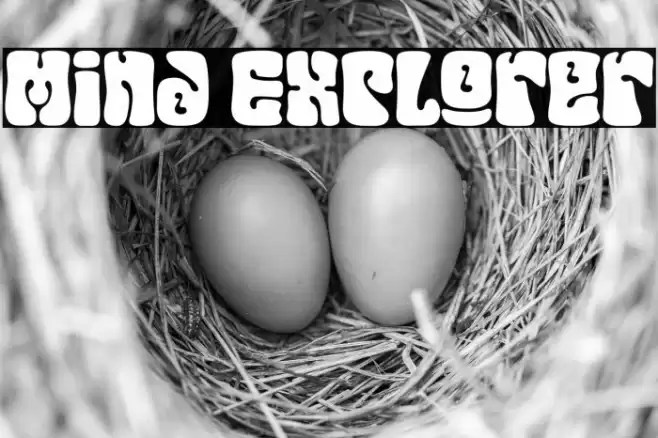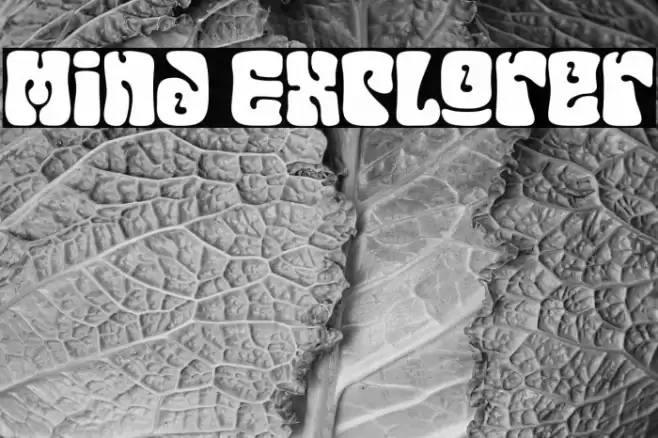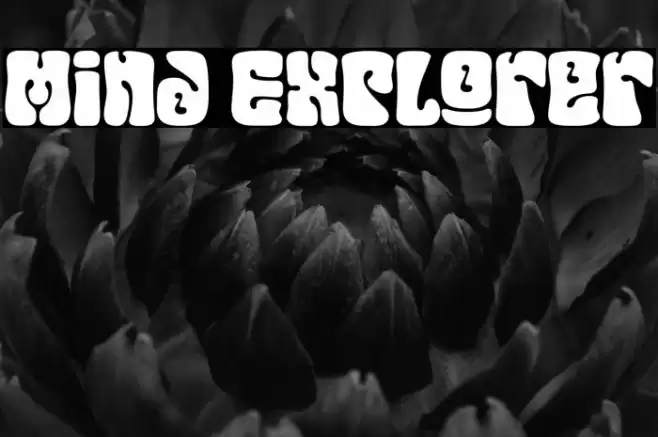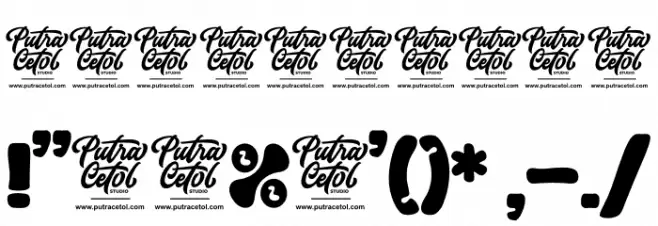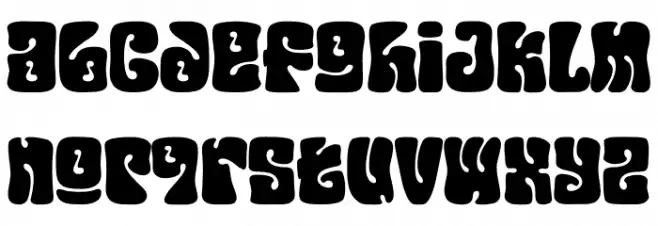
Mind Explorer Font
Mind Explorer Description
This font features a bold and playful design with a distinctly retro vibe. The characters are heavily stylized with thick, rounded edges and a bubbly appearance, reminiscent of 1960s and 1970s psychedelic art. The uppercase and lowercase letters maintain a consistent weight, contributing to a cohesive look. The numbers and special characters follow the same design principles, ensuring uniformity across all glyphs. This font's unique style makes it stand out, making it suitable for eye-catching designs.
A bold, retro-inspired font with a playful, bubbly style from Uncategorized fonts.
- Proposed Projects: Ideal for retro-themed posters, album covers, branding for creative industries, and any project needing a bold, eye-catching typeface.
- Overall Style: Vintage